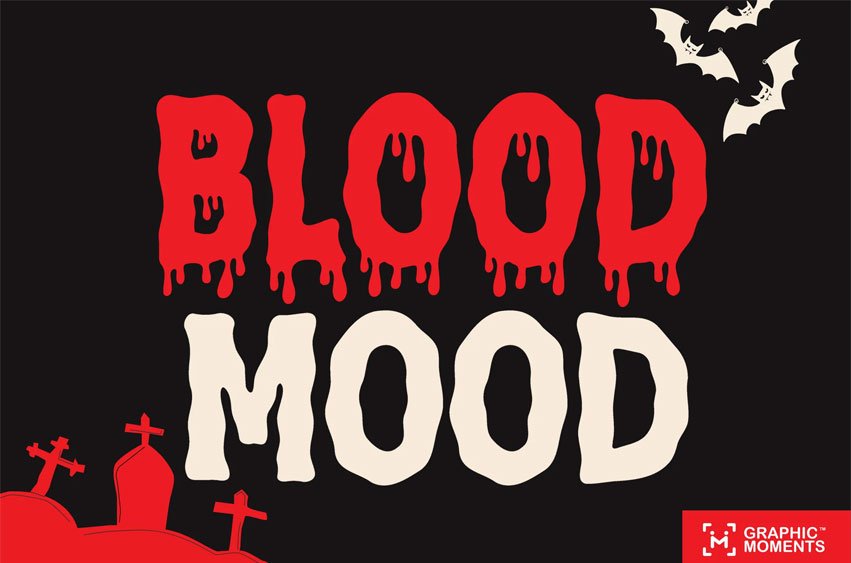
Blood Mood Font Unleash the terror of the night with Blood Mood, a horrifyingly stylish font drenched in dark vibes and gothic elegance. Perfect for Halloween designs, this font oozes creepy character and unsettling charm—ideal for horror movie posters, witch-themed branding, thriller titles, and anything that calls for a spooky, haunted touch. Its jagged edges and dripping strokes feel like the echoes of evil lurking just out of sight.
From mysterious death notes to monster-filled scenes, Blood Mood captures the eerie atmosphere of a cursed hallway under a blood-red moon. Whether you’re crafting a gothic invitation, a scary headline, or a chilling book cover, this font conjures fear, mystery, and supernatural dread with every letter. Let the Blood Mood take over your design—and don’t look back.